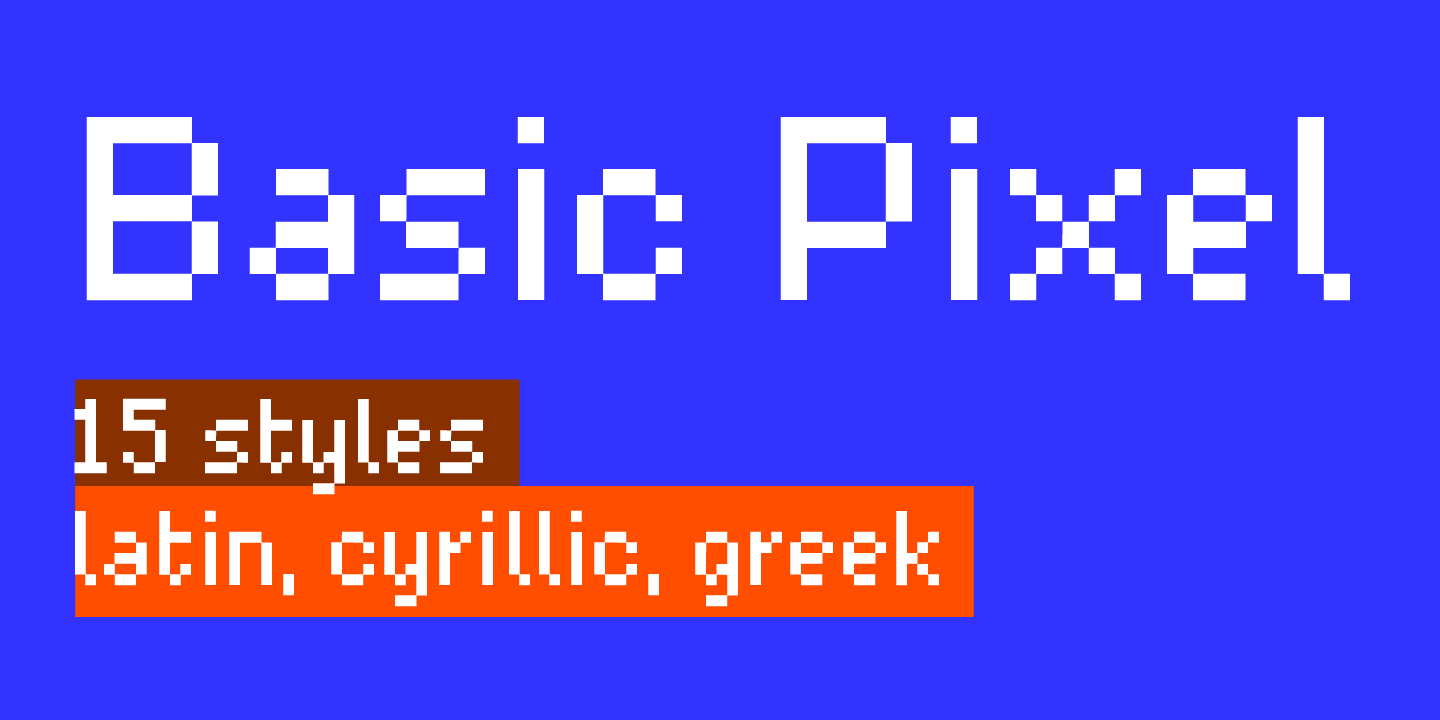
Basic Pixel Font is perfect for retro video game interfaces, 8-bit gaming nostalgia projects, pixel art designs, vintage computer graphics, arcade game displays, retro gaming merchandise, digital art exhibitions, and nostalgic design projects that require authentic typography with pixel-perfect character and retro gaming sophistication.
This Basic Pixel Font is exciting because it captures the pure essence of early digital typography with crisp pixelated letterforms that evoke the golden age of 8-bit computing, featuring precise bitmap character construction that maintains the authentic blocky aesthetic of classic video game text while ensuring perfect clarity at small display sizes.
The Basic Pixel Font family includes pixelated weights with retro gaming styling, complete character sets with blocky uppercase and lowercase letters, digital numerals, pixel punctuation, and gaming symbols that provide comprehensive typography solutions for retro gaming and pixel art design projects requiring authentic 8-bit aesthetics and nostalgic appeal.
Perfect for creating nostalgic gaming communications and retro digital brand identities, Basic Pixel Font Free Download delivers the pixelated typography that transforms text into authentic expressions of retro gaming culture and 8-bit nostalgia. This distinctive typeface embodies the essence of early video game graphics and digital art simplicity, making it essential for projects celebrating retro gaming, pixel art culture, vintage computing, and any design requiring pixelated character with authentic 8-bit sophistication and timeless retro gaming appeal that brings back memories of classic arcade adventures.